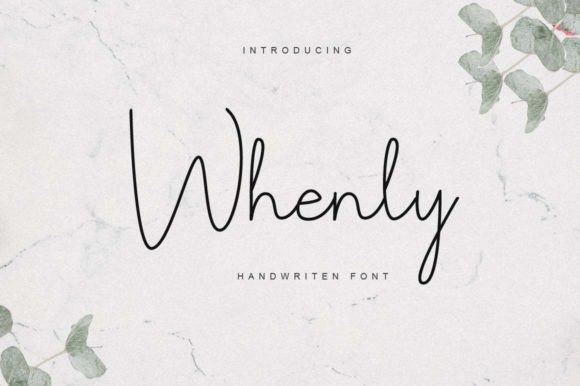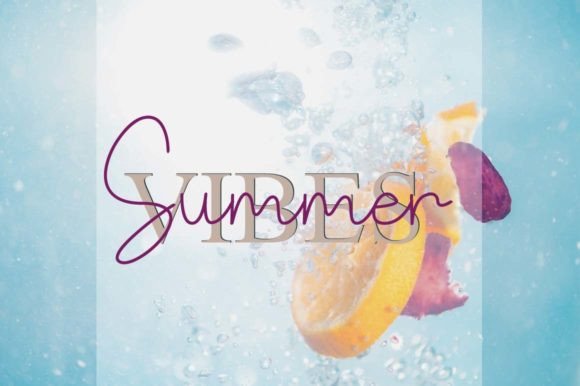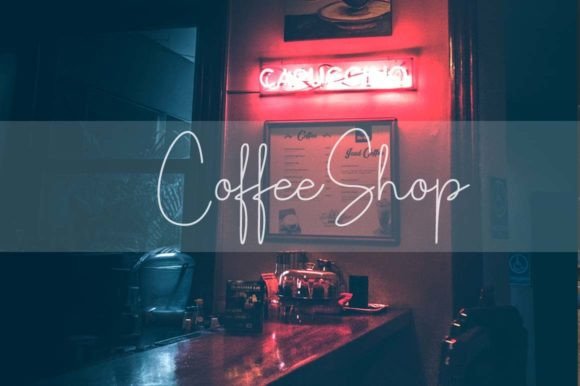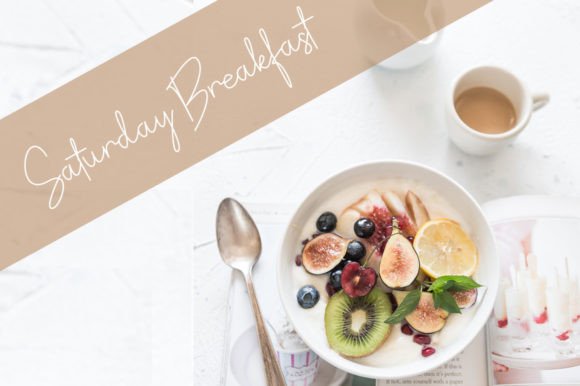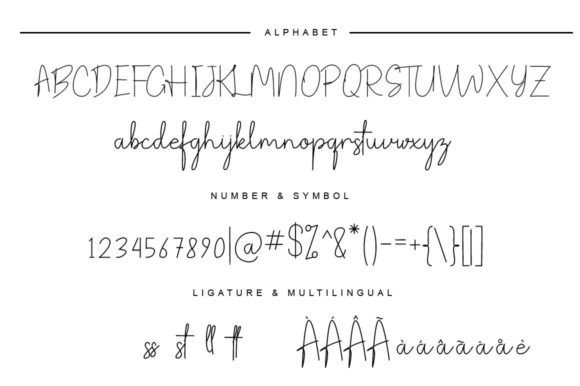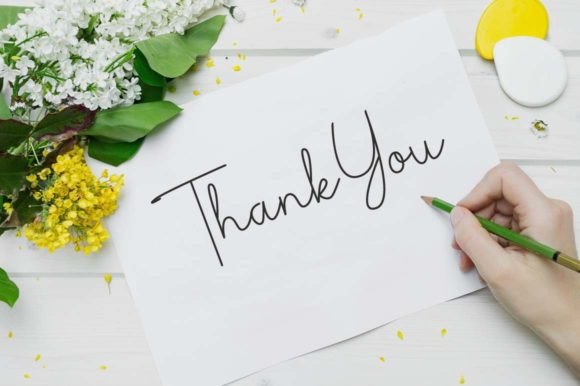
Whenly Font
About Whenly Font
Whenly is a signature font that brings a distinctive touch, making it perfect for a variety of design applications. This font is well-suited for logos, branding materials, posters, headlines, magazines, book titles, and more.
The signature style of Whenly imparts a personal and handwritten feel, adding a sense of uniqueness to your designs. Whether you’re working on a stylish logo or creating attention-grabbing headlines, Whenly stands out as a font that contributes to a signature, custom look.
Imagine Whenly gracing your designs, whether it’s on impactful logos, captivating posters, or any project that requires a touch of signature flair. The font becomes a key element that not only adds a personalized aesthetic but also infuses a sense of character into your creations.
In summary, Whenly is more than just a font; it’s a design asset that brings a signature style to your projects. Embrace its unique and handwritten feel confidently, and let Whenly be the typeface that enhances the visual appeal of your diverse creative endeavors.